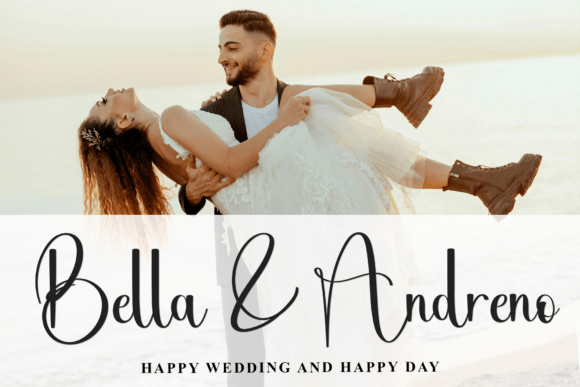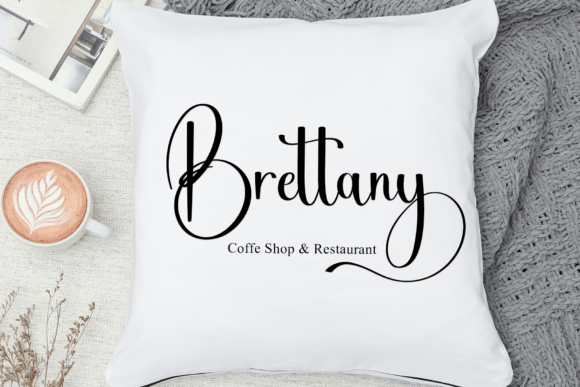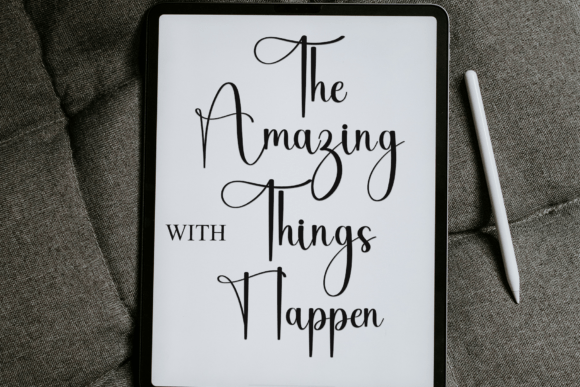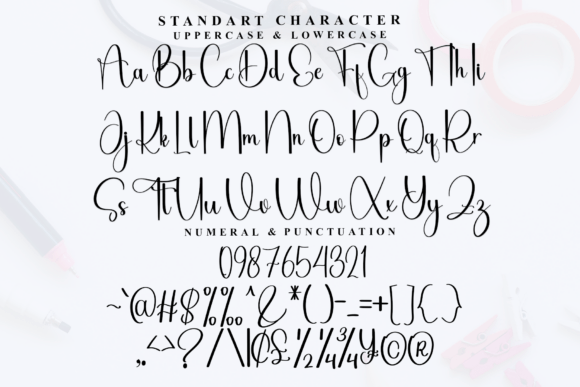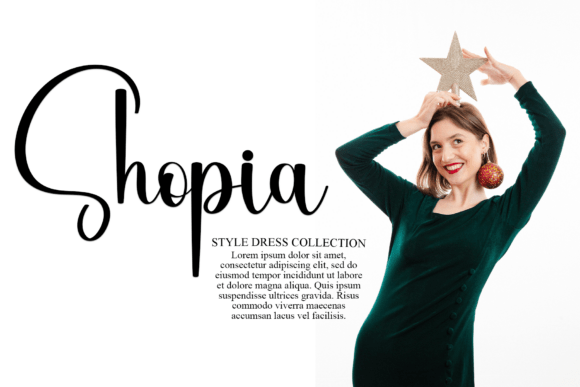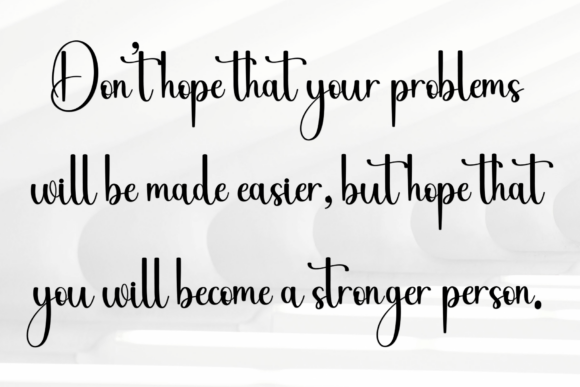
The Bobyboy Font: Elevate Your Designs with Elegance and Class
I’ll never forget the time I was working on a project for a high-end client, and I just couldn’t seem to find the right font to match their sophisticated brand. I scoured the internet, tried out dozens of fonts, but nothing seemed quite right. That was until I stumbled upon the Bobyboy font. With its trendy, handwritten aesthetic and impeccable form, it was the perfect fit. In this article, I’ll share my experience with the Bobyboy font, and show you how to make the most of its elegant features.
An Honest Review of Bobyboy Font
- ✨ Elegant and Classy: Bobyboy font exudes sophistication and refinement, making it perfect for high-end designs.
- ✅ Trendy yet Timeless: Its contemporary atmosphere and classic calligraphy inspiration ensure it will remain relevant for years to come.
- 💫 Versatile: Bobyboy font is suitable for a wide range of design projects, from branding and advertising to packaging and editorial design.
While the Bobyboy font is exceptional, there are a few minor quirks to be aware of:
- 🤔 Limited use of all-caps: While the font does have an all-caps version, it’s not as elegant as the lowercase letters.
The Story Behind Bobyboy Font
The Bobyboy font was inspired by the timeless classic calligraphy of the past. Its creator, a renowned typographer, sought to craft a font that would bring elegance and class to modern designs. With its trendy, handwritten aesthetic and impeccable form, Bobyboy font is the perfect fusion of old and new.
Q: What is the Bobyboy font inspired by?
A: The Bobyboy font is inspired by timeless classic calligraphy.
Q: Does Bobyboy font support OpenType features?
A: Yes, Bobyboy font supports OpenType features, including stylistic alternates and glyphs.